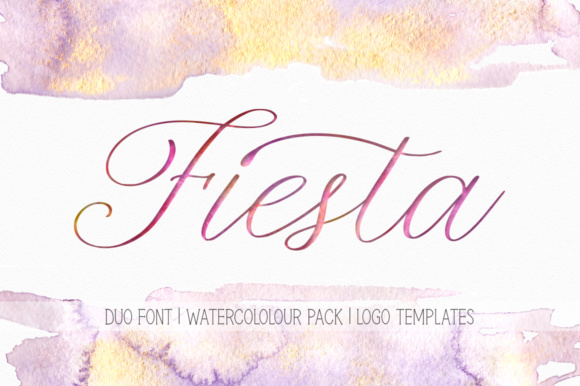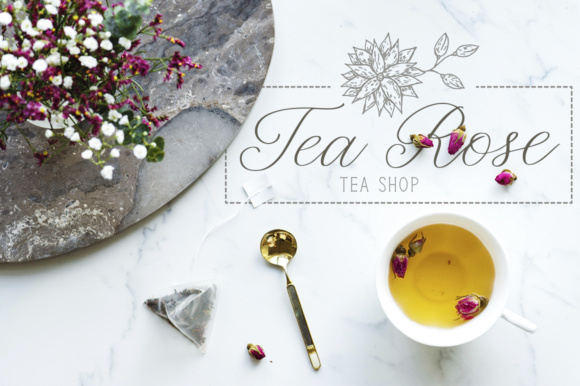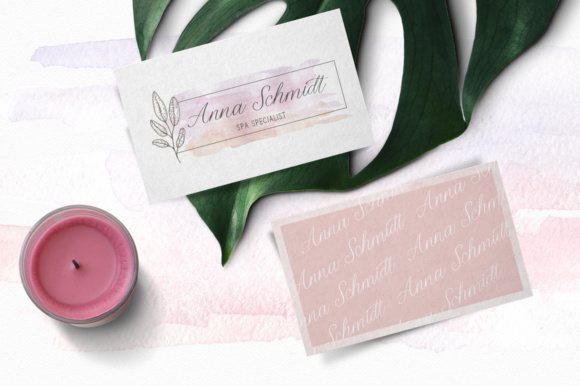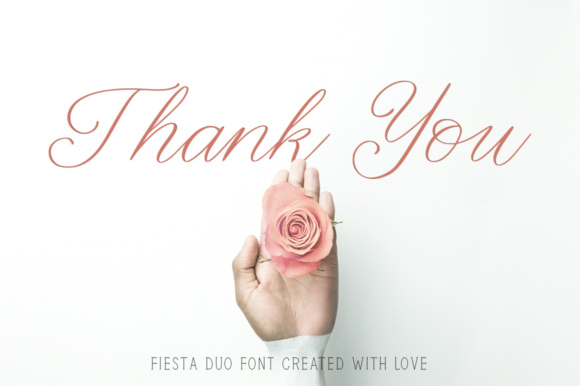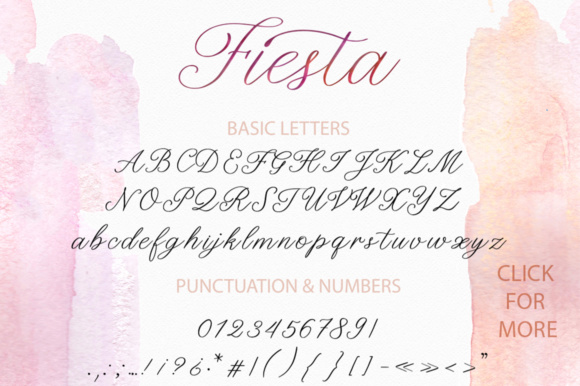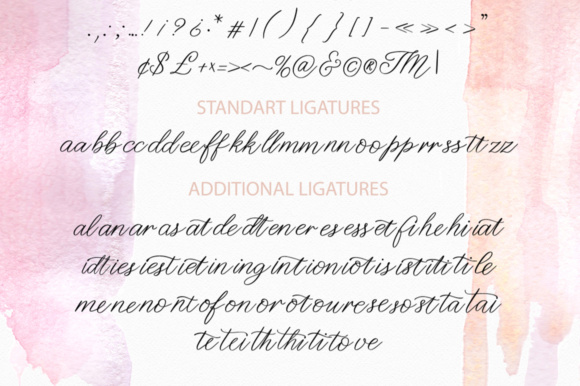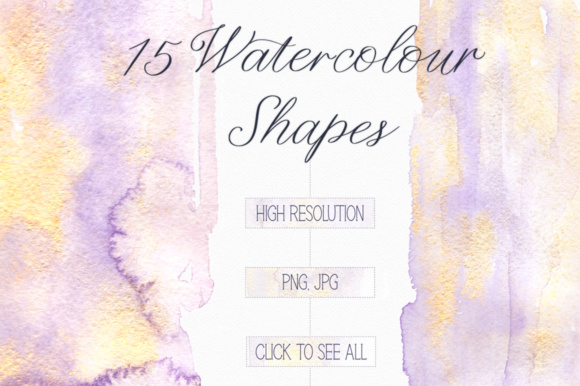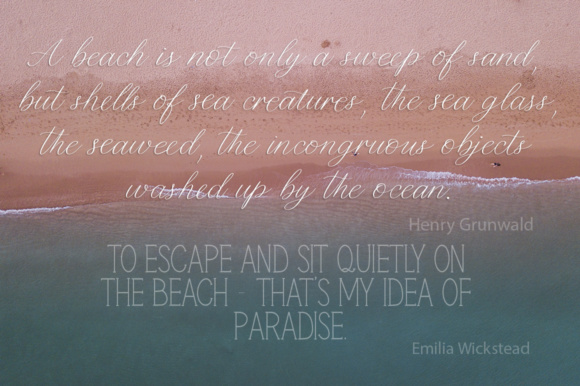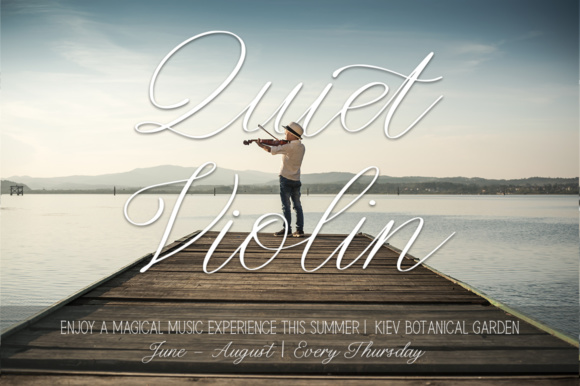
Fiesta Font
Fiesta is a beautiful and gentle looking calligraphy font, expressive and harmoniously crafted. This duo is ideal for use in special projects, and comes with added watercolor bonuses and logo templates so you can create jaw-dropping projects in a flash.